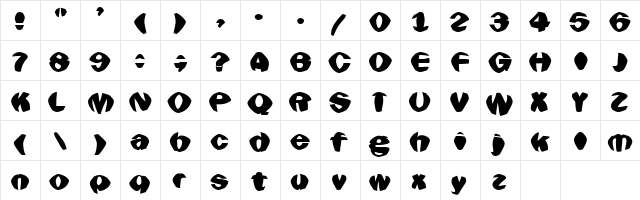
Goldfish Regular
Design Context for Goldfish Typeface
Goldfish is a composed and adaptable typeface that performs quietly and consistently across a wide range of design contexts.